MoMA has just acquired 23 digital typefaces for its Architecture and Design Collection. Some are of everyday use, like Verdana; others are familiar characters in our world, like Gotham, which was used in President Obama’s election campaign, or OCR-A, which we can find at the bottom of any product’s bar code; and others are still less common, but exquisitely resonant, like Walker or Template Gothic.
Digital Fonts: 23 New Faces in MoMA’s Collection
Different Strokes: Custom Alphabets Help Us Introduce Audiences to Artists
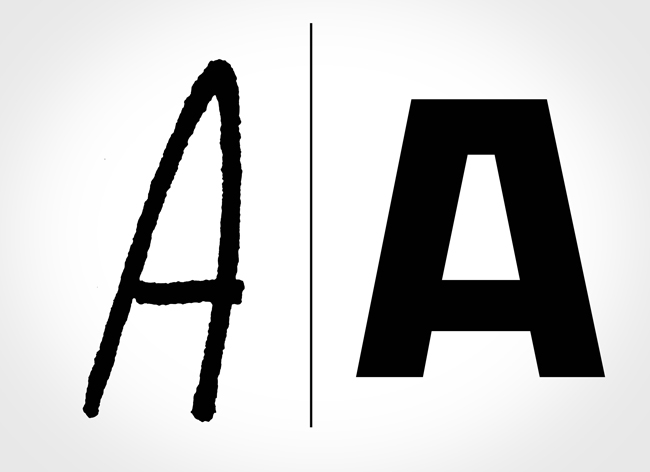
Left: "A" from alphabet created for Tim Burton exhibition graphics; Right: "A" from alphabet created for Marina Abramović exhibition graphics
What’s so special about a “special” exhibition? For us, MoMA’s graphic designers, they’re special enough to require their own unique graphic identity, and oftentimes a unique identity is all in the letters. For two very different shows now on view at MoMA, Tim Burton and Marina Abramović: The Artist Is Present, we created two very different title typefaces. Read more
From the Archives 02: A Brief Homage to Franklin Gothic
The Franklin Gothic typeface is the primary influence for nearly all MoMA materials; it’s the basis of our logo (see the top of your screen) and our official font “MoMA Gothic,” which were both created by Matthew Carter. We were happy to see that MoMA used a version of Franklin Gothic as long ago as the 1930s. We found these printed materials in our archives while doing some research on our current identity.
We understand not all people are totally crazy typographic aficionados like us, but more often these days, casual observers are able to recognize subtle differences in typefaces that were once thought to be the domain of only the obsessed. Can you spot Franklin Gothic on the walls of MoMA, in our subway advertisements, or anywhere else? Look for the “two story” lowercase “g” with a unique “ear” to be certain! Read more